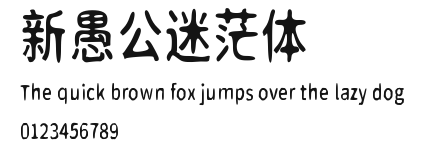
新愚公迷茫体 Preview
• Font Name: 新愚公迷茫体
• Font ID: XinYuGongMiMangTi:Version 1.20
• Full Font Name: 新愚公迷茫体
• Version: Version 1.20
• PostScript Name: XinYuGongMiMangTi
• Character Count: 44555
• Designer: 新愚公
About 新愚公迷茫体.ttf
新愚公迷茫体.ttf is a modern, elegant sans-serif font designed for ultimate readability and visual harmony. Perfect for branding, headlines, web design, and print materials.